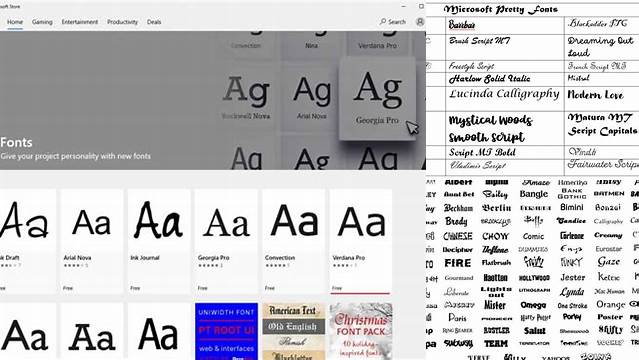
Download All Microsoft Fonts: A Complete Guide
Microsoft's Core Font Collection
Microsoft's core font collection is a set of fonts that have been included with Microsoft Windows operating systems for many years. These fonts are widely used in documents, websites, and other applications. Understanding this collection is crucial when you're looking to standardize your font usage across different platforms.
What's Included?
The core fonts typically include popular choices like Arial, Times New Roman, Courier New, and Symbol. These fonts have become ubiquitous, making them a safe bet for ensuring your documents look consistent across different computers and devices. Plus, many of these fonts are designed with readability in mind, making them excellent choices for body text and long documents. When you download all Microsoft fonts, you're essentially future-proofing your projects by ensuring they remain legible and professional, regardless of where they're viewed.
Why Are They Important?
The importance of these fonts lies in their widespread availability and compatibility. Because they've been included with Windows for so long, chances are good that anyone opening a document created with these fonts will be able to see it as intended. This is crucial for avoiding those frustrating situations where text gets substituted with a different, less appealing font. The consistent appearance these fonts provide can help maintain a professional image for your work. Moreover, these fonts often serve as the baseline for many web designs, ensuring a smooth and universal user experience. Securing all Microsoft fonts helps to avoid formatting mishaps and ensures your work is viewed as intended.
Downloading Arial Font for Free
Arial is arguably one of the most recognizable and widely used fonts in the world. It's a sans-serif typeface that is known for its clean lines and readability, making it a favorite for both print and digital media.
Alternatives to Arial
If you're looking for free alternatives to Arial, several fonts offer similar characteristics. Helvetica, for example, is another popular sans-serif font that shares many similarities with Arial. Open Sans and Roboto are also great options that are freely available and widely used in web design. These alternatives can provide a similar aesthetic without the potential legal complications associated with using a proprietary font without a license. Exploring these alternatives can broaden your design palette and give you more flexibility in your projects. If you need a free download of Arial, these options might do the trick without the licensing hassles.
Times New Roman Download Options
Times New Roman is a classic serif typeface that is known for its elegance and readability. It's often used in books, newspapers, and formal documents.
Finding a Reliable Source
When seeking Times New Roman download options, it's crucial to find a reliable source. This font typically comes bundled with Microsoft Office, so most users already have it installed. However, if you need to download it separately, stick to reputable font providers or official Microsoft channels. Avoid downloading from unknown websites, as they may contain malware or distribute illegal copies of the font. A safe and reliable source ensures that you're getting a legitimate copy of the font without any unwanted extras. Prioritize safety when you're looking to download Times New Roman.
Installation Tips
Once you've found a reliable source for Times New Roman, the installation process is usually straightforward. On Windows, you can simply right-click the font file and select "Install." On macOS, you can use the Font Book application to add the font to your system. After installation, Times New Roman should appear in your font selection menu in any application that supports custom fonts. If you encounter any issues, make sure to restart your computer to refresh the font cache. Following these installation tips will ensure that you can start using Times New Roman without any hassle. Getting the Times New Roman download and installing it correctly is key.
Usage in Different Programs
Times New Roman is a versatile font that can be used in a variety of programs, from word processors to graphic design software. Its readability makes it an excellent choice for body text, while its classic appearance lends itself well to formal documents and headings. Experiment with different sizes and weights to see how Times New Roman can enhance your projects. Keep in mind that different programs may render fonts slightly differently, so it's always a good idea to preview your work on multiple devices to ensure consistency. Understanding its usage across different programs helps you maximize the Times New Roman download benefits.
Courier New Font: Where to Get It
Courier New is a monospaced font, meaning each character takes up the same amount of horizontal space. This makes it a popular choice for coding, technical documents, and screenplays.
Official Microsoft Sources
The most reliable place to get Courier New font is through official Microsoft sources. If you have a Windows operating system, Courier New is likely already installed on your computer. If you need to download it separately, you can often find it bundled with other Microsoft products like Office. Always prioritize official sources to ensure that you're getting a legitimate copy of the font without any malware or licensing issues. Staying safe is paramount when you're looking for Courier New font.
Alternative Download Sites
While official sources are the safest, alternative download sites may also offer Courier New. However, exercise caution when downloading from third-party websites. Make sure the site is reputable and has a good track record for providing safe downloads. Scan any downloaded files with antivirus software before installing them to protect your computer from potential threats. Look for user reviews and ratings to gauge the reliability of the download site. Being cautious when using alternative download sites helps to protect you. Getting Courier New font requires a careful approach.
Licensing Information
Before using Courier New in your projects, it's essential to understand the licensing information. Courier New is a proprietary font, so it's subject to licensing agreements. If you're using it for commercial purposes, make sure you have the appropriate licenses to avoid any legal issues. Many font providers offer different licensing options depending on your usage needs, so take the time to review these carefully. Understanding the licensing aspects ensures that you're using Courier New ethically and responsibly. When looking for the Courier New font, keep these things in mind.
Symbol Font and its Uses
The Symbol font is a unique typeface that contains a variety of symbols, mathematical operators, and other special characters. It's often used in scientific documents, technical manuals, and other specialized applications.
What Characters Are Included?
The Symbol font includes a wide range of characters that are not typically found in standard fonts. These include mathematical symbols like integrals, summations, and Greek letters, as well as various other symbols and dingbats. This makes it an invaluable tool for anyone working with technical or scientific content. The comprehensive nature of the Symbol font makes it a must-have for specific documentation needs.
Where to Find It
Finding the Symbol font is usually straightforward for Windows users, as it's often included with the operating system. However, if you need to install it separately or want to ensure you have the latest version, you might need to explore alternative methods like font packages or third-party installers. Make sure you're downloading from a reputable source to avoid any potential security risks. Once installed, the Symbol font will appear in your font selection menu in any application that supports custom fonts. It's usually a standard install. Access to Symbol font broadens the scope of your character selection.
Practical Applications
The Symbol font has numerous practical applications in various fields. In mathematics and science, it's used to represent equations, formulas, and other technical notation. In publishing and design, it can be used to add unique symbols and dingbats to enhance visual appeal. Its versatility makes it a valuable asset for anyone who needs to work with specialized characters. Having the Symbol font at your disposal can significantly streamline the creation of complex documents.
Downloading Microsoft Fonts for Mac
If you're a Mac user, downloading Microsoft fonts can be a bit different than on Windows. Here's how to get those fonts onto your Apple device.
Using Font Book
Font Book is the built-in font management application on macOS. You can use it to install, organize, and preview fonts. To download Microsoft fonts for Mac, simply drag and drop the font files into Font Book, or use the "Add Font" option in the File menu. Font Book will then validate the fonts and install them on your system. This makes font management straightforward and user-friendly. Using Font Book is an easy way to manage the download Microsoft fonts for Mac process.
Compatibility Issues
When download Microsoft fonts for Mac, be aware of potential compatibility issues. Some fonts may not render correctly on macOS due to differences in font rendering engines. Always preview the fonts in different applications to ensure they look as expected. If you encounter any issues, try using a different font format or consult online resources for troubleshooting tips. Keep an eye out for potential rendering differences. The download Microsoft fonts for Mac experience can vary.
Alternatives for Mac Users
If you're having trouble finding or installing Microsoft fonts on your Mac, consider exploring alternative font options. Many free and commercial fonts are available that offer similar styles and characteristics. Websites like Google Fonts and Adobe Fonts offer a wide selection of high-quality fonts that are compatible with macOS. These alternatives can provide a similar aesthetic without the hassle of dealing with compatibility issues. When you download Microsoft fonts for Mac has issues, these are great solutions.
Installing Microsoft Fonts on Linux
Linux users might find the process of installing Microsoft fonts a bit different, but it's still very manageable. Here's how to get those fonts up and running on your Linux system.
Using Font Managers
Most Linux distributions come with built-in font managers that allow you to easily install and manage fonts. You can use these font managers to install Microsoft fonts on Linux by simply importing the font files. The font manager will then handle the installation process, making the fonts available to all applications on your system. This streamlined approach makes font management straightforward. Using font managers is a great way to install Microsoft fonts on Linux.
Command Line Installation
For more advanced users, the command line offers a powerful way to install Microsoft fonts on Linux. You can use commands like cp
to copy the font files to the appropriate directory (usually /usr/share/fonts
or ~/.fonts
), and then run fc-cache -f -v
to update the font cache. This method gives you more control over the installation process, but it also requires a bit more technical knowledge. The command line is a powerful tool to install Microsoft fonts on Linux.
Troubleshooting Tips
If you encounter any issues while install Microsoft fonts on Linux, there are several troubleshooting steps you can take. First, make sure the font files are in a compatible format (usually TTF or OTF). Second, check the permissions on the font files to ensure they are readable by all users. Finally, try restarting your computer to refresh the font cache. These troubleshooting tips can help you resolve common installation problems. A bit of troubleshooting might be needed to install Microsoft fonts on Linux.
Open Source Alternatives to Microsoft Fonts
Looking for free and open-source alternatives to Microsoft fonts? There are many excellent options available that can provide a similar aesthetic without the licensing restrictions.
Google Fonts is a vast library of free and open-source fonts that are available for anyone to use. You can find open source alternatives to Microsoft fonts that closely resemble popular Microsoft typefaces like Arial, Times New Roman, and Courier New. Google Fonts are easy to embed in websites and documents, making them a convenient choice for many projects. It's a massive library. Google Fonts is a great place to find open source alternatives to Microsoft fonts.
Font Squirrel is another excellent resource for find open source alternatives to Microsoft fonts. It offers a curated collection of high-quality, free fonts that are licensed for commercial use. Font Squirrel also provides a font generator tool that allows you to create custom font formats for different platforms and devices. Finding a substitute can be easy. Font Squirrel helps you find open source alternatives to Microsoft fonts.
The League of Movable Type
The League of Movable Type is a collective of designers and developers who are dedicated to creating and promoting free and open-source fonts. Their website features a selection of beautifully crafted typefaces that are available for download and use in your projects. This is a good place to start looking. You can find open source alternatives to Microsoft fonts there.
Microsoft Web Fonts: A Comprehensive List
Microsoft web fonts are a set of typefaces that are designed for use on the web. They are optimized for readability and performance on different browsers and devices.
Core Web Fonts
The core web fonts include popular choices like Arial, Times New Roman, Courier New, and Georgia. These fonts are widely supported by web browsers and are considered safe choices for ensuring consistent rendering across different platforms. Using core fonts helps maintain readability. A list of Microsoft web fonts must include these.
Safe Fonts for Websites
When designing websites, it's essential to use safe fonts for websites that are widely available and render consistently across different browsers and operating systems. This ensures that your website looks as intended for all visitors, regardless of their device or browser. Sticking with safe fonts ensures a smooth user experience. You need safe fonts for websites to make your site user-friendly.
Using CSS Font Stacks
CSS font stacks allow you to specify a list of fonts that the browser should use to render text. This provides a fallback mechanism in case the primary font is not available on the user's system. When using CSS font stacks, always start with the desired font and then list alternative fonts that are similar in style and characteristics. This ensures that your website maintains a consistent look and feel, even if the primary font is not available. CSS helps make your site visually sound. When considering a list of Microsoft web fonts, think about implementing these.
How to Identify Microsoft Fonts
Ever stumble upon a font and wonder if it's a Microsoft font? Here's how to identify them like a pro.
Font Recognition Tools
Font recognition tools are online services or software applications that can identify fonts from images or screenshots. Simply upload an image of the text, and the tool will analyze the font and provide a list of potential matches. Some popular font recognition tools include WhatTheFont, Font Matcherator, and Identifont. These tools make the process easier. Using font recognition tools helps identify a Microsoft font quickly.
Examining Font Properties
Another way to identify Microsoft fonts is by examining their properties in a word processor or design application. Most applications provide detailed information about the font, including its name, family, and version. You can also look for clues like the font's designer or foundry, which can help you determine if it's a Microsoft font. Digging into properties can help. Try examining font properties to pinpoint which Microsoft font you're looking at.
Common Characteristics
Microsoft fonts often share common characteristics that can help you identify them. For example, many Microsoft fonts are designed with readability in mind, featuring clean lines and balanced proportions. They also tend to be widely available and pre-installed on Windows operating systems. Knowing these common characteristics can help you narrow down the possibilities. Microsoft fonts often share traits. Understanding their common characteristics makes them easier to spot.
Microsoft Font Licensing Explained
Understanding Microsoft font licensing is crucial to avoid legal issues when using their fonts in commercial projects. Let's break it down.
Understanding EULAs
An End User License Agreement (EULA) is a legal agreement between the font vendor (in this case, Microsoft) and the end user. The EULA specifies the terms and conditions under which you are allowed to use the font. Always read the EULA carefully before using a Microsoft font in your projects. Understanding the terms is critical. When dealing with Microsoft font licensing, start by understanding EULAs.
Commercial Use Restrictions
Many Microsoft font licenses have restrictions on commercial use. For example, you may not be allowed to embed the font in commercial products or distribute it to third parties without obtaining a separate license. Make sure you understand these restrictions before using a Microsoft font in your business or commercial projects. Pay attention to restrictions. You have to know about the commercial use restrictions when it comes to Microsoft font licensing.
Embedding Fonts
Embedding fonts refers to including the font file within a document or application so that the font is displayed correctly even if the user doesn't have the font installed on their system. Some Microsoft font licenses may restrict or prohibit font embedding, especially in commercial applications. Check the EULA to see if font embedding is allowed and under what conditions. Embedding restrictions matter. When it comes to Microsoft font licensing, check rules on embedding fonts.
How to Update Microsoft Fonts
Keeping your Microsoft fonts up to date is essential for ensuring compatibility and security. Here's how to do it.
Windows Update
The easiest way to update Microsoft fonts is through Windows Update. Microsoft often includes font updates in its regular system updates, so simply make sure your Windows operating system is set to automatically install updates. This will ensure that you always have the latest versions of Microsoft fonts. Windows Updates often do the trick. Using Windows Update is the easiest way to update Microsoft fonts.
Manual Installation
If you prefer to manually update Microsoft fonts, you can download the latest font packages from the Microsoft website or other reputable sources. Once you've downloaded the font files, you can install them using the Font Book application on macOS or by copying them to the appropriate directory on Linux. Manual installation gives you more control over the update process. Manual downloads are also an option to update Microsoft fonts.
Checking Font Versions
To check the version of a Microsoft font, simply open the font file in a font management application or a word processor. The font properties will usually display the font's version number, allowing you to compare it to the latest available version. Staying up to date is important. Checking font versions helps ensure you update Microsoft fonts properly.
Common Issues with Microsoft Fonts and How to Fix Them
Sometimes, you might run into issues with Microsoft fonts. Here's how to troubleshoot them.
Font Rendering Problems
Font rendering problems can occur when fonts are not displayed correctly on your screen. This can be caused by a variety of factors, including corrupted font files, outdated graphics drivers, or compatibility issues with your operating system. To fix font rendering problems, try clearing your font cache, updating your graphics drivers, or reinstalling the affected fonts. Rendering issues can be frustrating. Addressing font rendering problems can fix common issues with Microsoft fonts.
Font Substitution
Font substitution occurs when a document or application uses a different font than the one specified. This can happen if the original font is not installed on your system or if the font file is corrupted. To prevent font substitution, make sure you have all the necessary fonts installed and that they are properly installed. Also, try using common fonts that are widely available and supported. Substitution can alter document appearance. Fixing font substitution helps with common issues when using Microsoft fonts.
Font Corruption
Font corruption can cause a variety of problems, including font rendering issues, application crashes, and system instability. Font corruption can be caused by viruses, malware, or disk errors. To prevent font corruption, make sure you have a reliable antivirus program installed and that you regularly scan your system for threats. Also, avoid downloading fonts from untrusted sources. Corruption can cause major issues. Addressing font corruption can fix common issues when using Microsoft fonts.
Tips for Managing Your Font Library
Managing your font library effectively can save you time and improve your workflow. Here are some tips to help you stay organized.
Font Management Software
Font management software allows you to organize, activate, and deactivate fonts as needed. This can be especially useful if you have a large font library. Some popular font management software options include FontExplorer X Pro, Suitcase Fusion, and RightFont. They help keep you organized. Using font management software makes it easier to handle your font library.
Organizing Fonts by Category
Organizing fonts by category can make it easier to find the right font for your projects. You can categorize fonts by style (e.g., serif, sans-serif, script), by project type (e.g., web, print), or by client. Categorizing simplifies your workflow. Organizing fonts by category makes managing your font library easier.